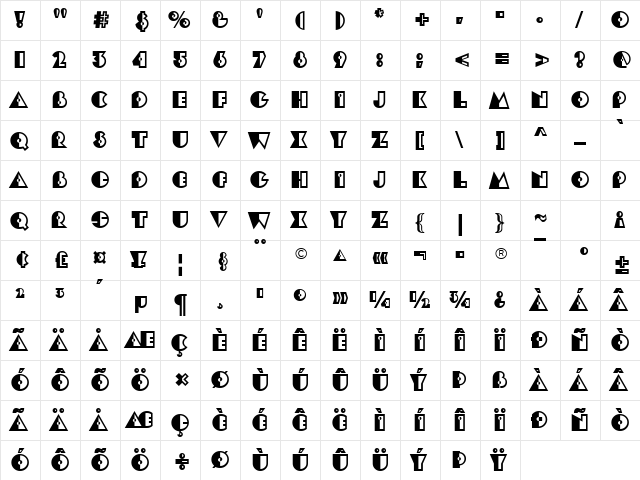
Eclipse Regular
Design Context for Eclipse Typeface
Eclipse is a composed and adaptable typeface that performs quietly and consistently across a wide range of design contexts.